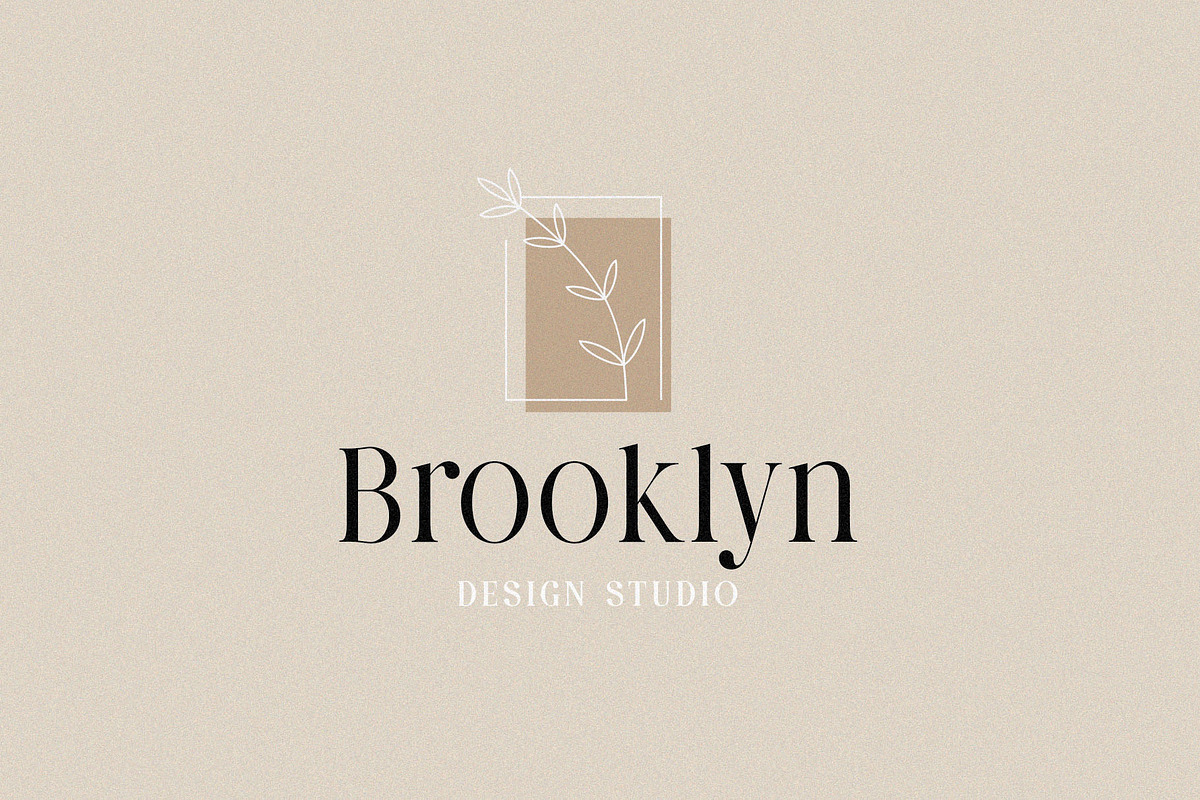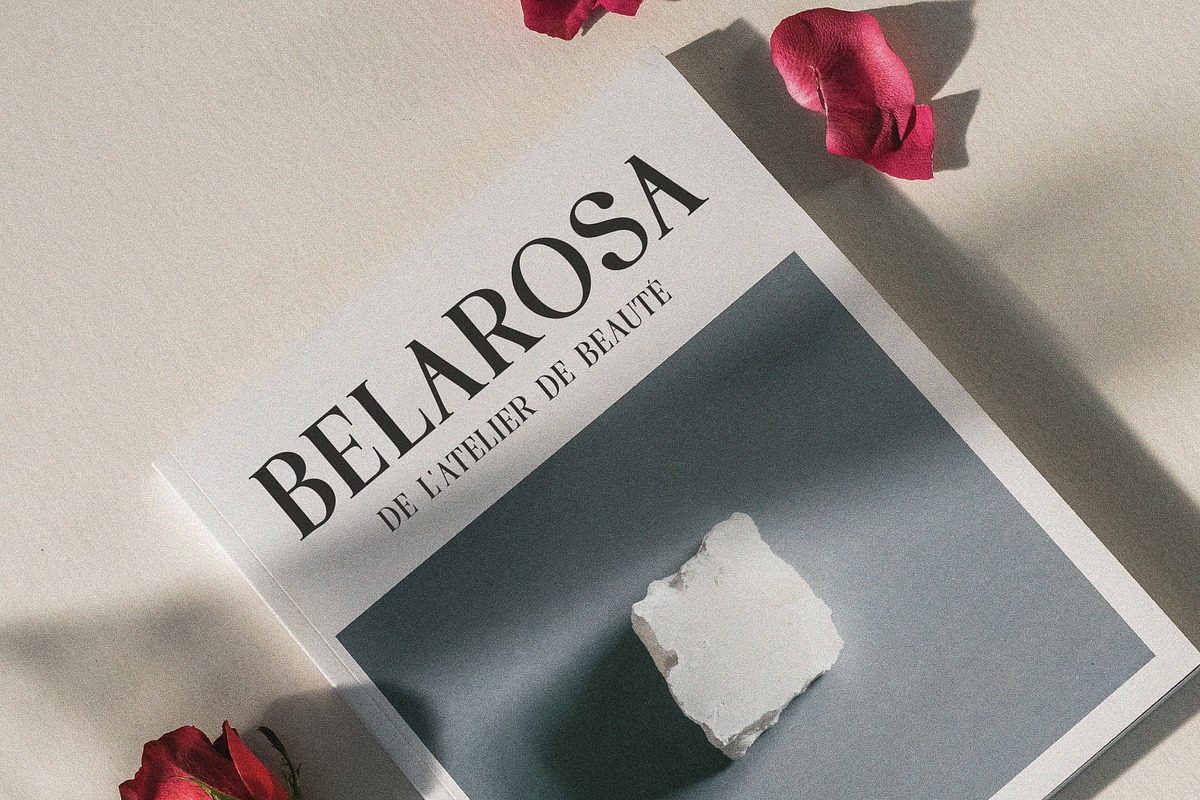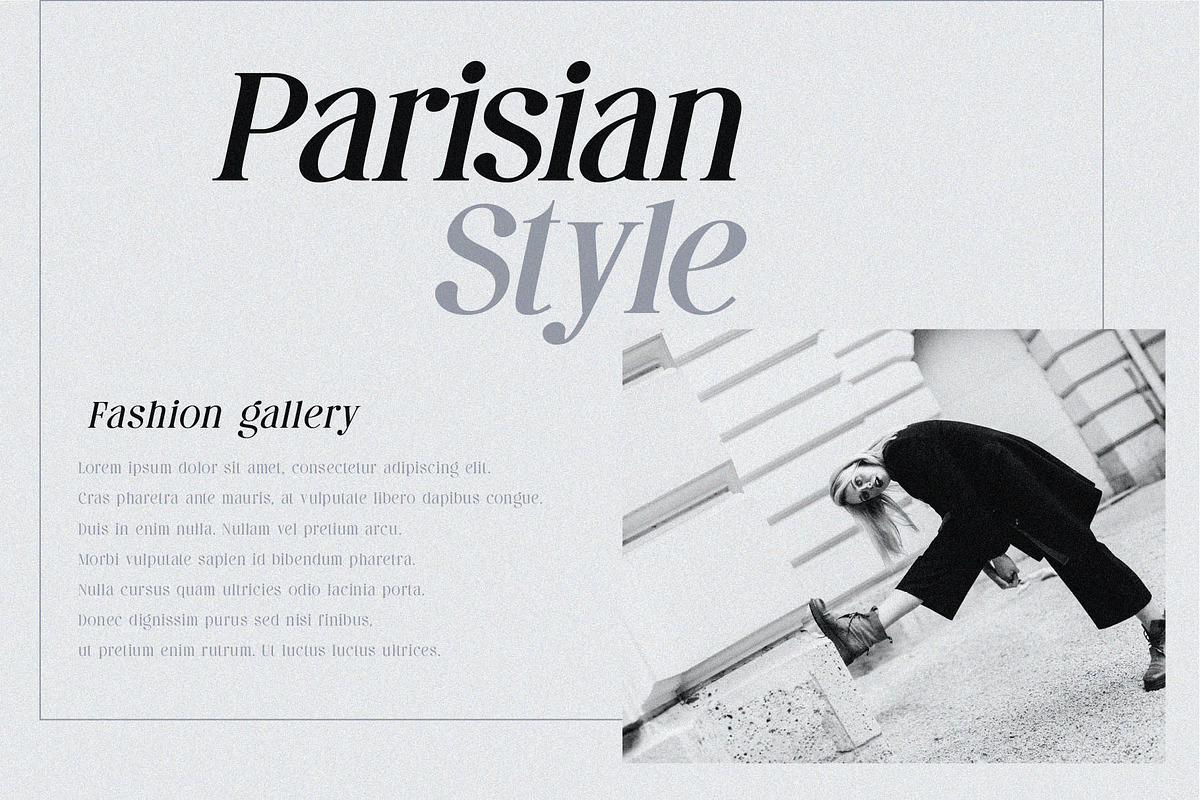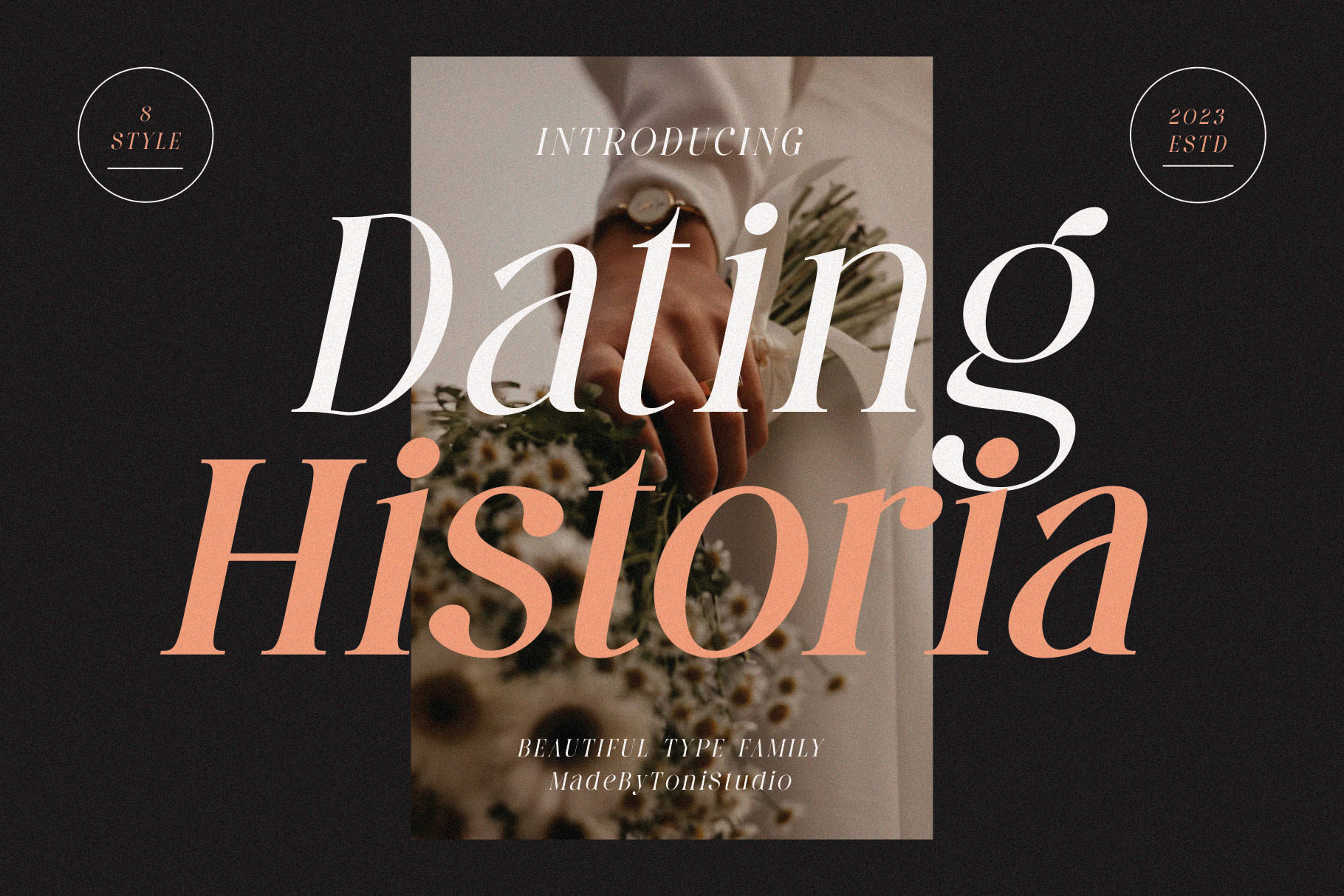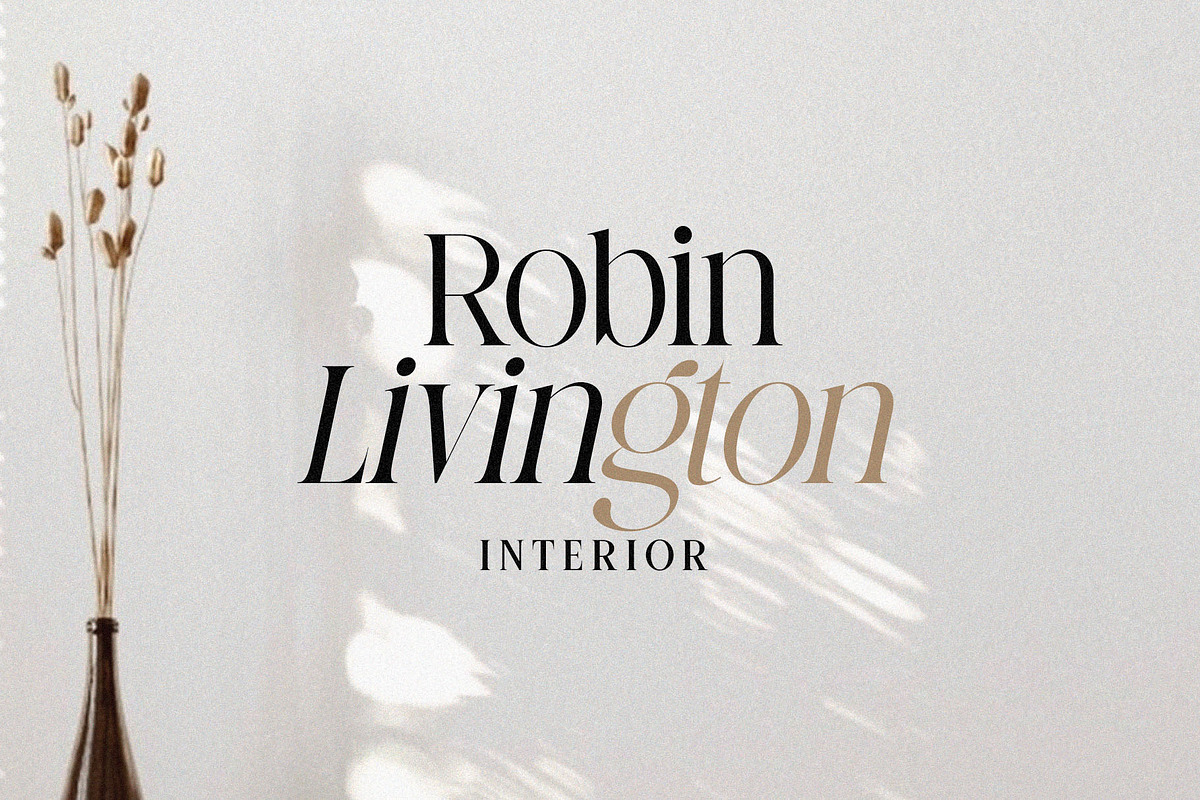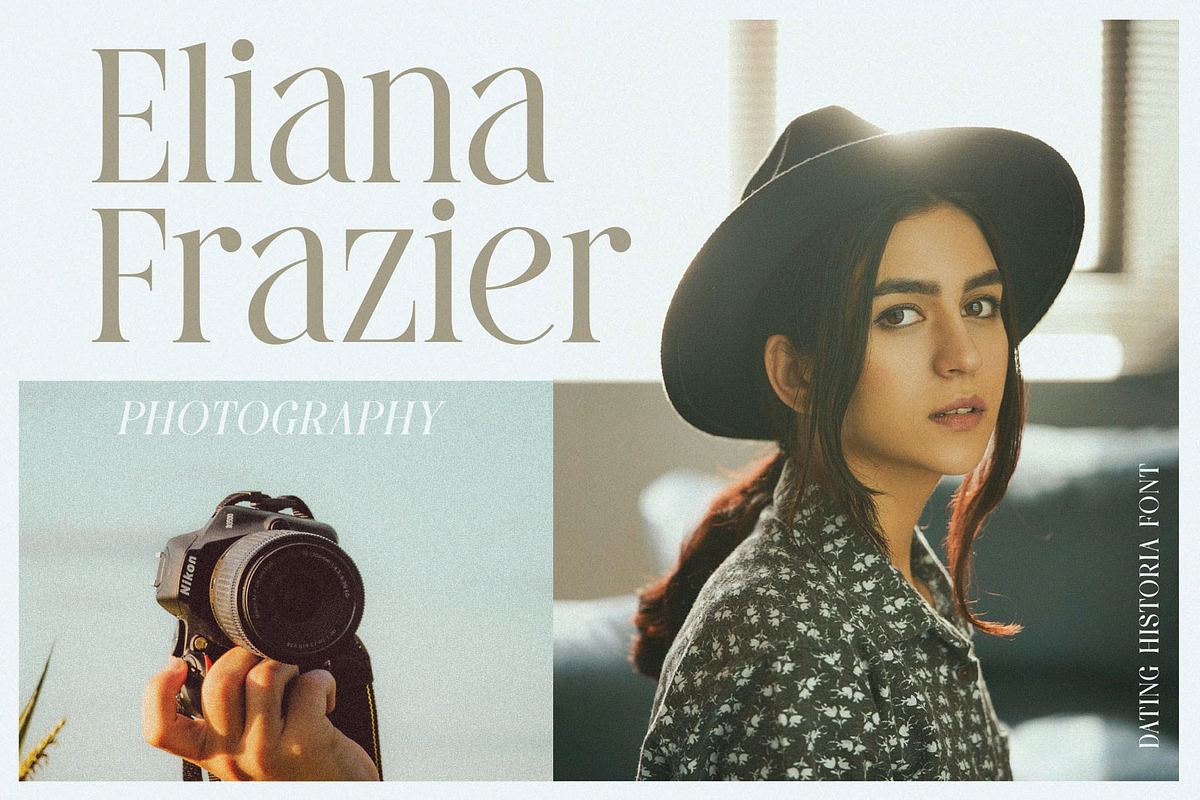
Dating Historia font family
Serve! Dating Historia font family, consisting of regular and italic versions with eight types. allows for a very sophisticated and contemporary typographical approach. It comes in various levels of integrated Condensed forms to create interesting effects. With a choice of typefaces to match any design, it adds contrast and impact to your type designs. Thank you so much for checking out my shop, and please get in touch if you have any questions! Fatoninurman1995@gmail.com